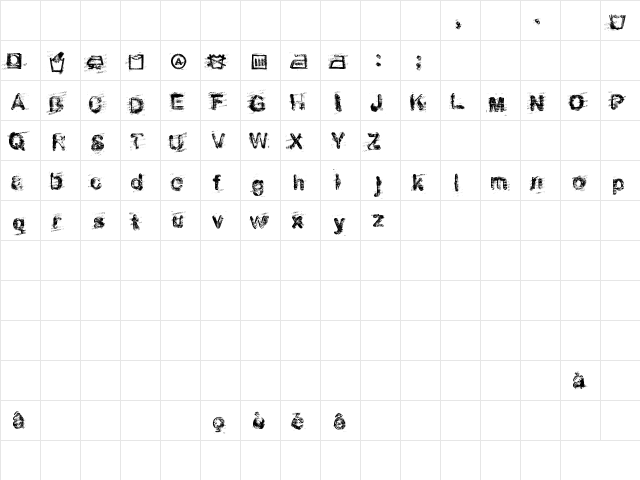
stoned wash Regular
Design Context for stoned wash Typeface
stoned wash is a composed and adaptable typeface that performs quietly and consistently across a wide range of design contexts.